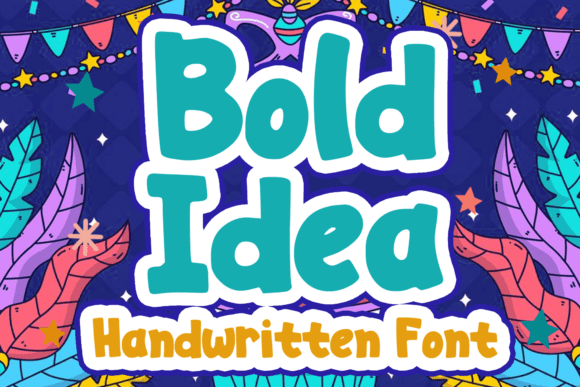
Discover the Power of Bold Statement Making
Have you ever been brainstorming a new project and suddenly, a burst of creativity hits you? The ideas start flowing, and you can’t wait to bring your vision to life. For designers, this feeling is a daily occurrence, and it’s precisely what makes our profession so thrilling. In this article, we’ll be diving into a font that embodies the spirit of creativity and playfulness – the Bold Idea Font.
With its vibrant, cartoon display style, the Bold Idea Font is designed to stand out from the crowd and make a statement. Whether you’re working on a children’s book illustration, a festive party invitation, or a friendly greeting card, this font is sure to bring a jovial and ebullient flair to your designs. As a designer, you’ll appreciate the versatility and limitless potential of the Bold Idea Font, making it a valuable addition to your toolkit.
Bold Idea Font Features
- Font Family: Bold Idea Font is a sans-serif font family designed for optimal readability and versatility.
- Unique Characteristics: Features a distinctive, modern design aesthetic with bold lines and a strong x-height, making it perfect for headlines and titles.
Designer Review: Bold Idea Font
Overall, I’d say the Bold Idea Font is a decent choice for a bold, attention-grabbing font. ✨ Here are a few things I like about it:
- It’s certainly bold and eye-catching, making it perfect for headlines or titles.
- The font is highly legible, even at smaller sizes, which is a must for any font.
- The font is also highly customizable, allowing you to adjust the weight, size, and spacing to your liking.
- The font can be a bit overwhelming if used extensively throughout a design, so be sure to use it sparingly.
- The font doesn’t come with a lot of character variations, which can make it feel a bit limited in terms of expressiveness.
- The font may not be suitable for body text, as it can be a bit too bold and overwhelming.
Overall, I think the Bold Idea Font is a solid choice for designers who want to make a statement. While it may have some limitations, its bold and legible design make it a great option for headlines and titles. Just be sure to use it thoughtfully and sparingly to avoid overwhelming your audience.
For optimal results, use Bold Idea Font in conjunction with a clear and simple design. This font is ideal for headings, titles, and other attention-grabbing elements. Experiment with different font sizes and colors to create a visually appealing design.
Bold Idea Font is suitable for various applications, including:
– Headings and titles
– Marketing materials (brochures, flyers, etc.)
– Presentations and reports